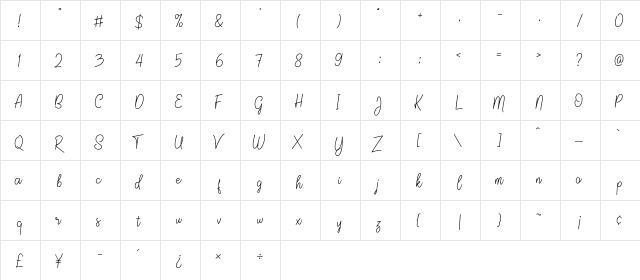
Jalisco Script Demo Regular
| Foundry | Twicolabs Fontdation |
| Designer | Twicolabs Fontdation |
Design Context for Jalisco Script Demo Typeface
Jalisco Script Demo flows with the natural rhythm of handwritten lettering, making it ideal for designs that call for warmth and personal expression.
Font Pairing: Combine Jalisco Script Demo with a simple geometric sans for maximum contrast — the tension between flowing curves and clean structure is a classic typographic pairing.
Pro Tip: Use Jalisco Script Demo for short runs of text — names, titles, or taglines. Extended body copy in script faces tires the eye quickly.